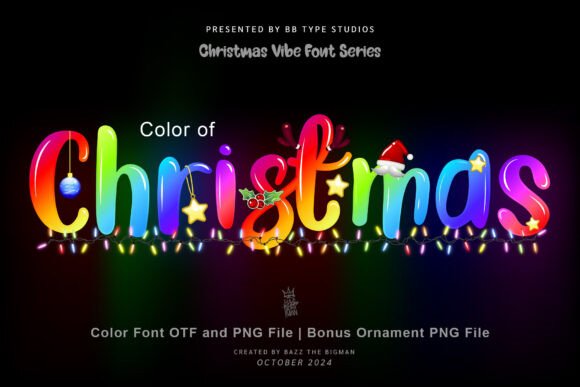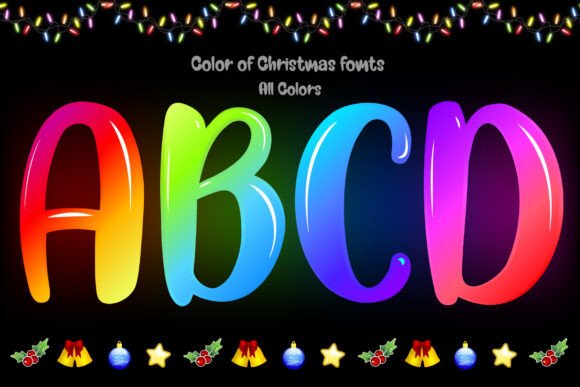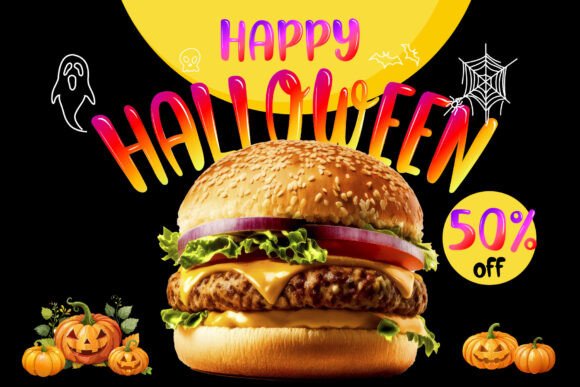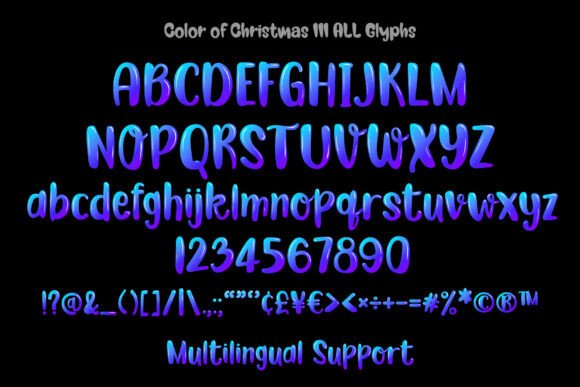
Color of Christmas Font
Step into the holiday spirit with ‘Color of Christmas’, a charming and vibrant font. Imbued with festivity and joy, this font breathes life into all your Christmas-inspired creations, transforming every t-shirt, craft, and card into a captivating masterpiece. Witness your projects instantly come alive, all thanks to the enchanting allure of the ‘Color of Christmas’ font.